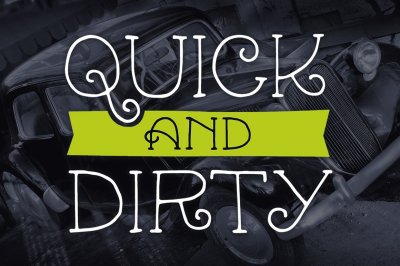
Introducing Billy Hatter.
Billy Hatter is quirky handwritten font.
It is bouncy, charming and perfect for many design projects or crafting ideas, Billy Hatter perfect for large design project like Tshirt, Advertising, bags, quotes, food , poster, fashion, custom sticker, magazine, and many others.